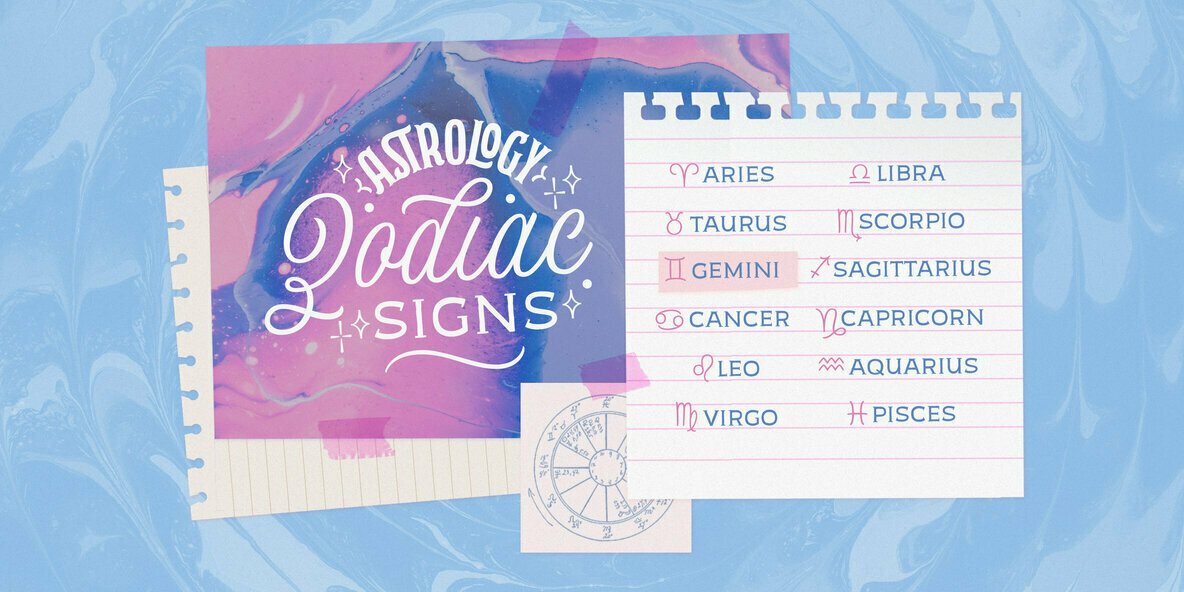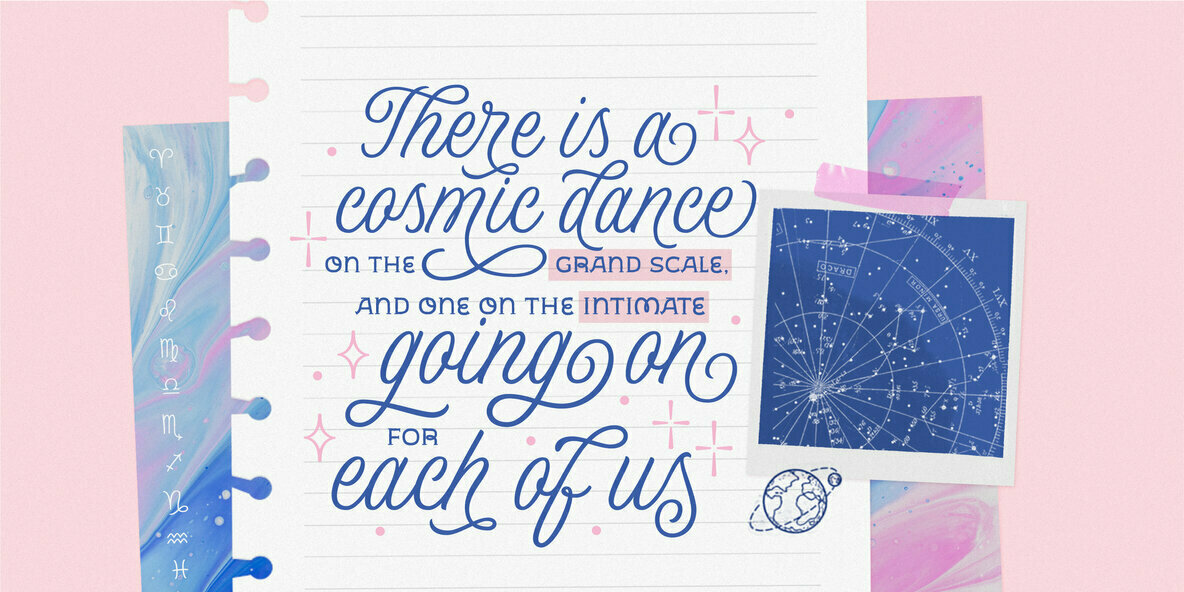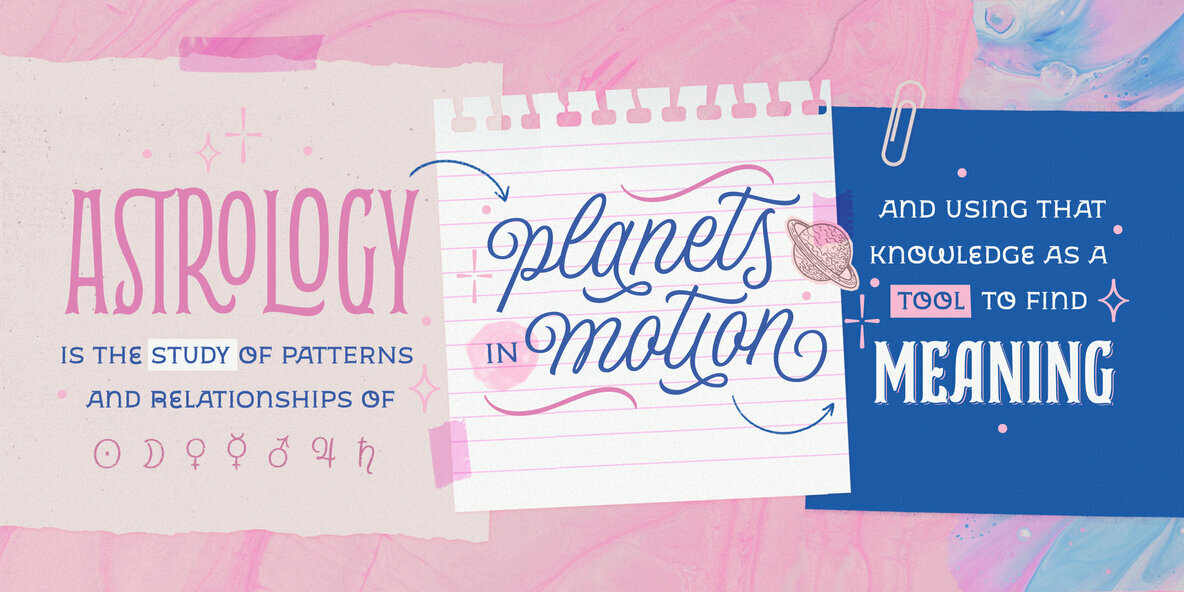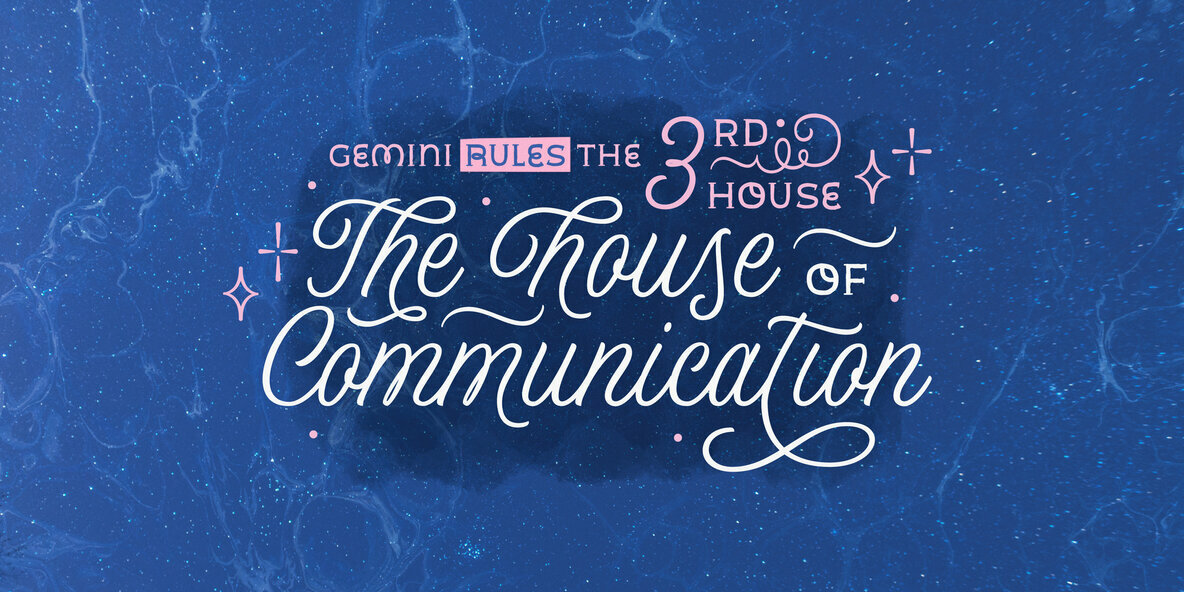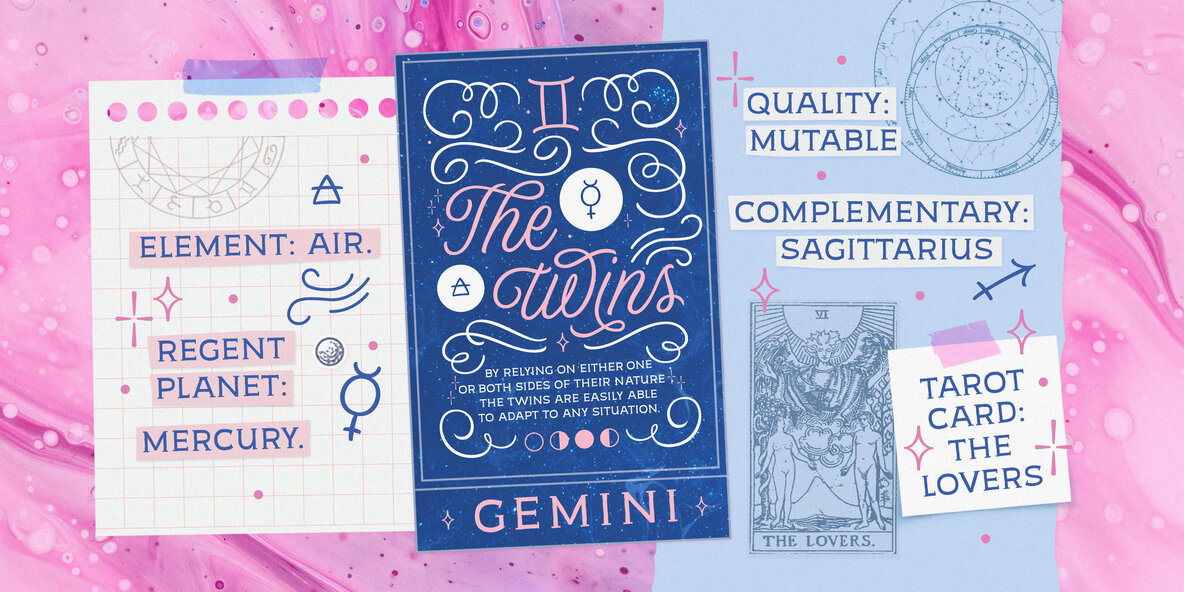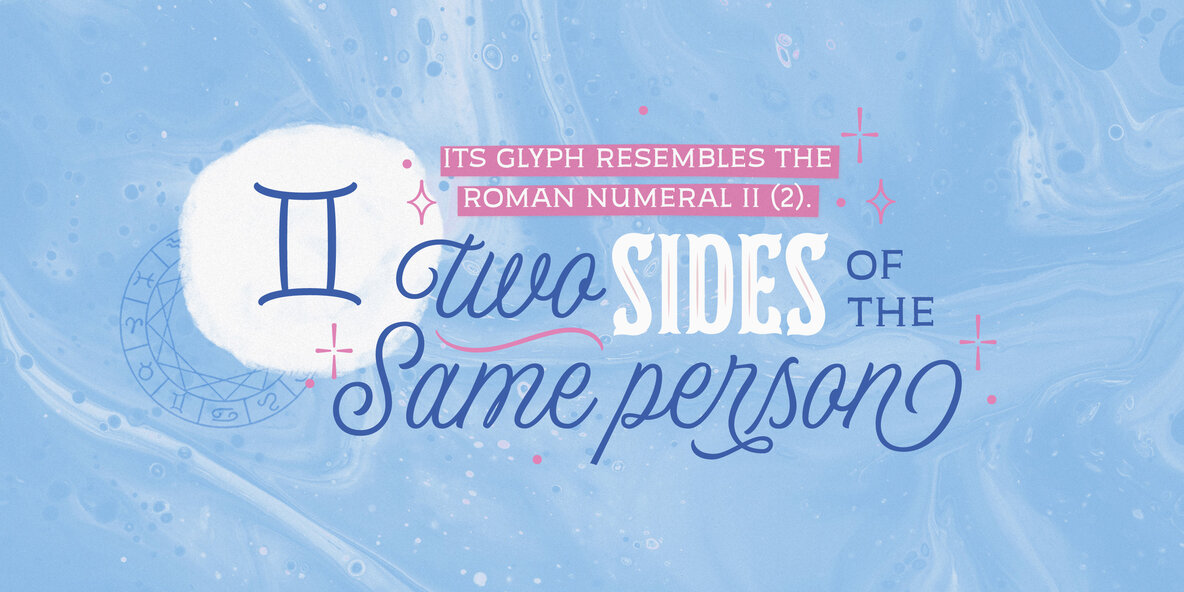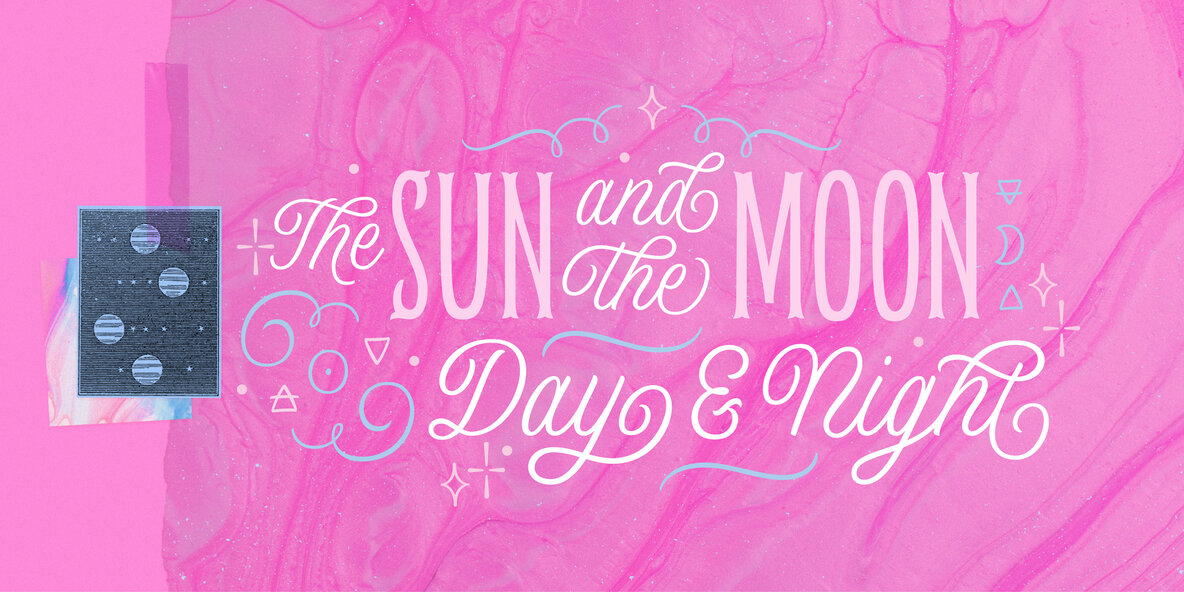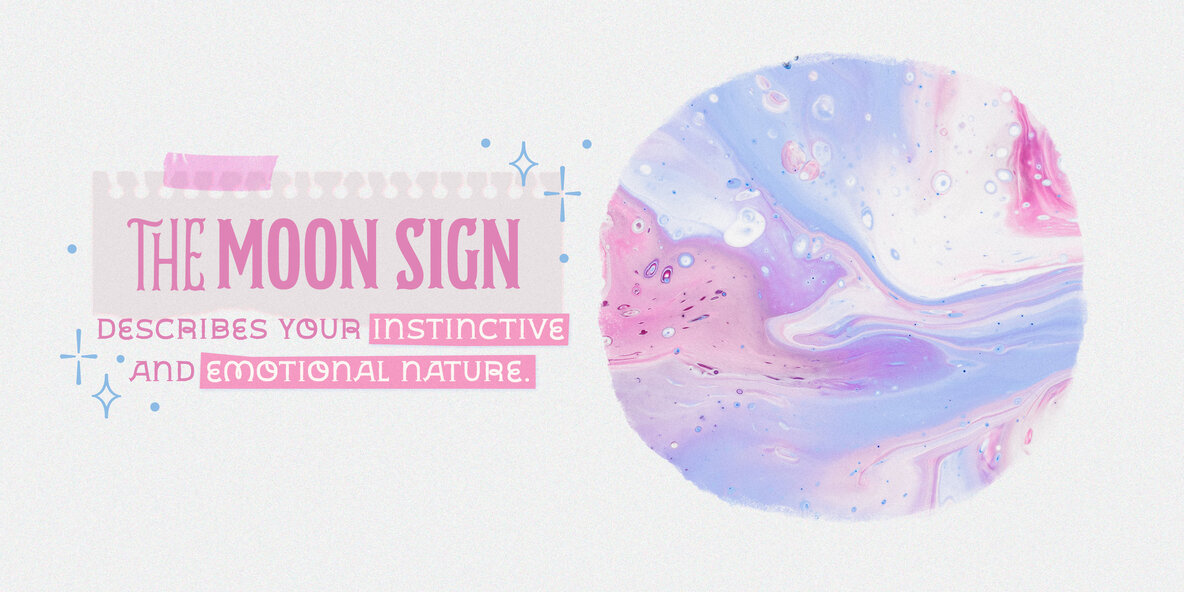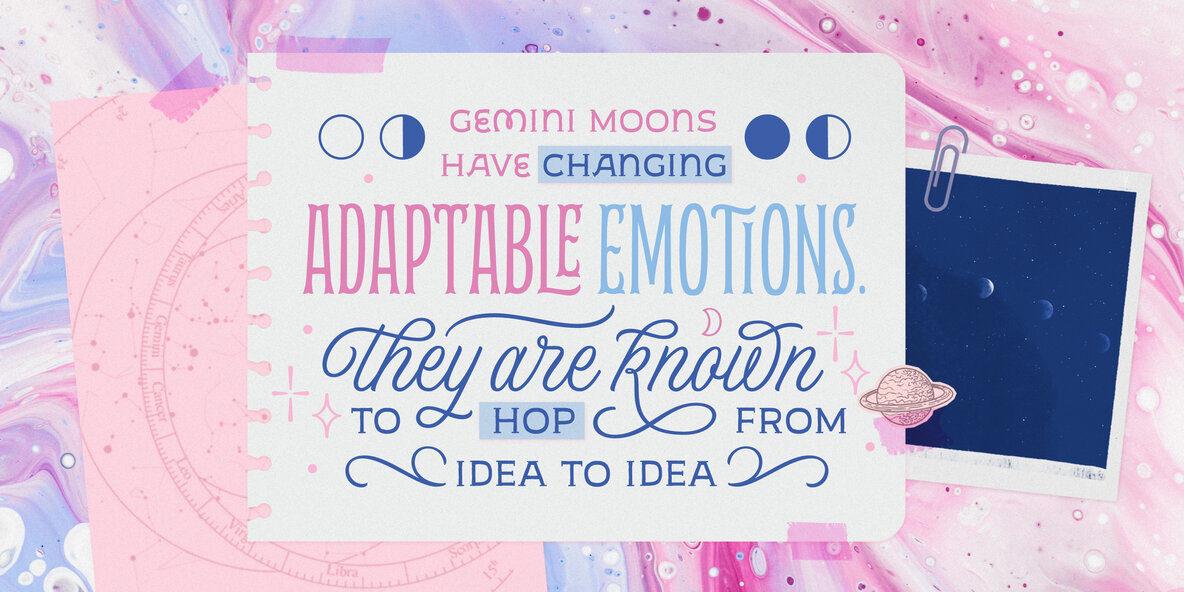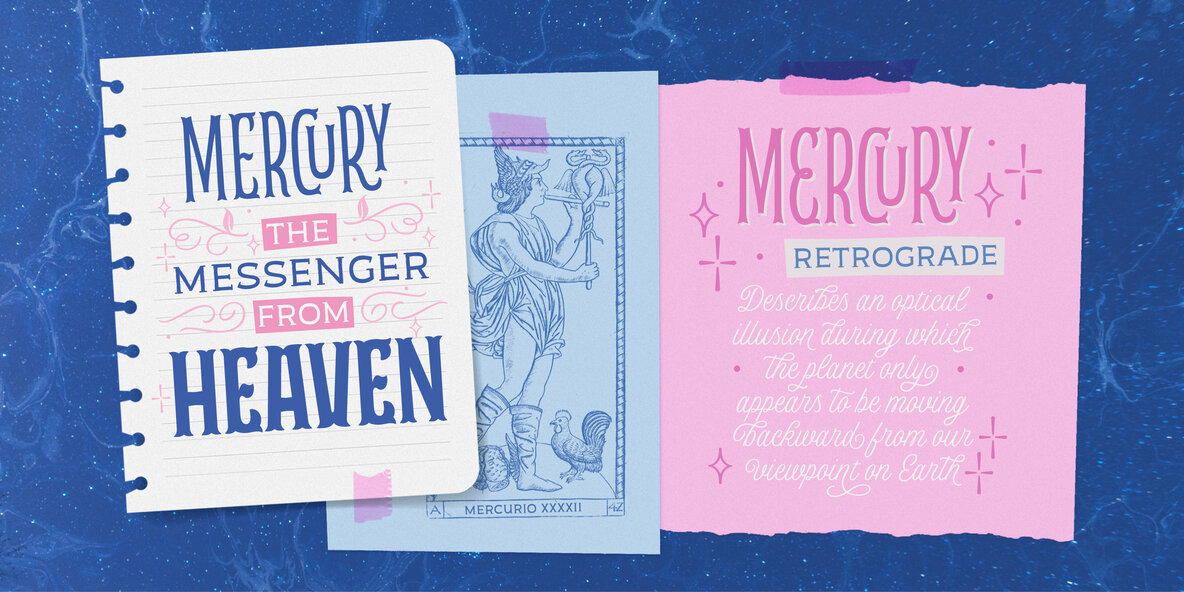
Geminian Font
Geminian Caps
Geminian Caps Bold
Geminian Caps Roman
Geminian Script
Geminian Signs
Geminian is a set of fonts that started as a simple idea based on a theoretical level and developed during a long time, to be able to take shape under a creative impulse inspired by the need to communicate, today more than ever. From an astrological point of view, it celebrates and contributes to this practice, the study of stars position and movement and their influence on people's destiny. As a good Gemini, this set revives the main features of the opposite twins sign. Gemini is associated with thoughts, creativity, and communication. Its ruler Mercury (Hermes for the ancient Greeks), messenger of the Gods, and spokesman of the divine word, gives the natives of this sign intelligence, wit, eloquence and poetry.
Geminian aims to be a medium to carry different messages from one end to the other. And this is because when using words, Geminis always surprise. Thanks to this gitf (and language and communication), they are able to bring up the most ingenious ideas, to solve any problem and to contribute new perspectives. These qualities may be the secret of its magnetism.
The Geminian set comes in 5 styles including a script with multiple ligatures and alternates, 3 sets of caps and dingbats. In addition the complete font family supports a wide variety of Latin alphabet-based languages.